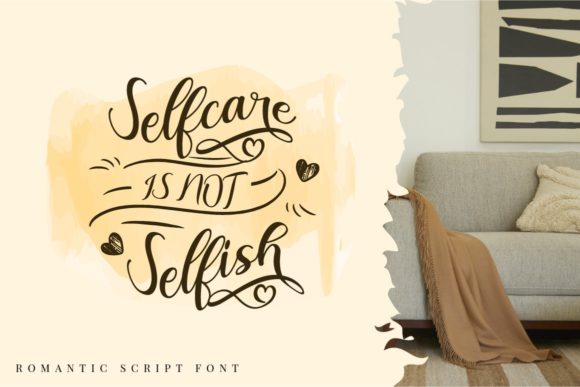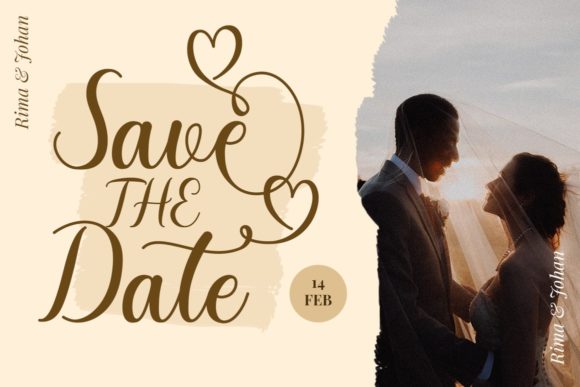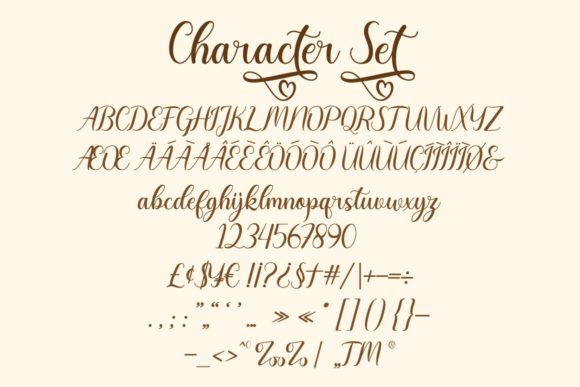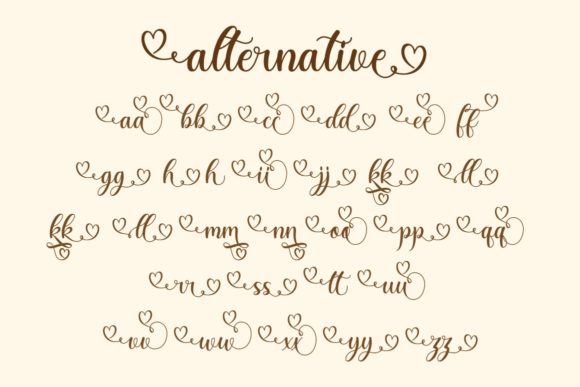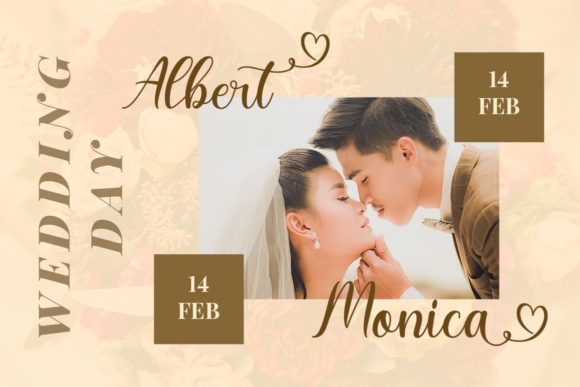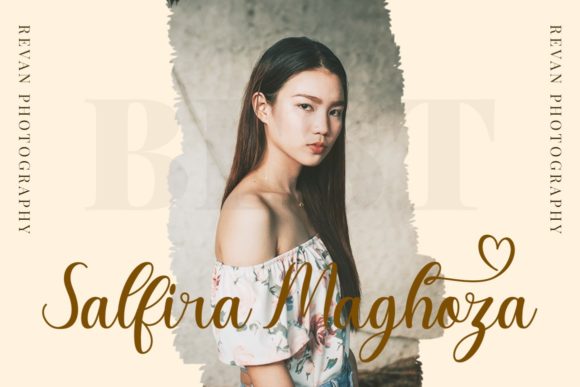
Introduction to Romantic Dates Font
As designers, we’ve all been there – staring at a blank canvas, waiting for inspiration to strike. For some, it’s the gentle glow of a sunset, while for others, it’s the soft whisper of a loved one’s voice. For me, it’s the feeling of curling up with a good book and a warm cup of coffee on a lazy Sunday morning. And that’s exactly the feeling I get when I see the Romantic Dates Font in action.
This dreamy and warm handwritten font is a design resource like no other, perfectly capturing the essence of romance and whimsy. Whether you’re working on a creative project that requires a touch of elegance or a free download that needs a dash of personality, the Romantic Dates Font is sure to deliver. With its PUA encoding, you can access all of the glyphs and swashes with ease, making it the perfect addition to your design toolkit.
As a high-quality design resource, the Romantic Dates Font is a valuable asset for any designer looking to add a touch of sophistication to their work. And with its transparent background, you can easily integrate it into any project, from wedding invitations to blog posts, and make it stand out in a big way.
Key Features of Romantic Dates Font
- High-quality, elegant design perfect for creative projects and romantic occasions
- Unique, hand-drawn style with intricate details and flourishes, adding a touch of romance to any design
- Perfect for use in wedding invitations, Valentine’s Day cards, and other romantic-themed creative projects
Honest Review: Romantic Dates Font
I recently came across the Romantic Dates Font and was excited to give it a try for my latest creative project. As a designer, I’m always on the lookout for high-quality design resources to elevate my work. The Romantic Dates Font did not disappoint.
Here are some things that work well: ✨ High-quality glyphs, perfect for creating beautiful typography. ✨ The font is highly customizable, making it ideal for a variety of design projects. ✨ It’s a free download, which is always a bonus.
However, there are some limitations to consider: ⚠️ The font doesn’t come with a transparent background option, which can be a bit limiting for certain design applications. ⚠️ Some of the glyphs may require additional styling to achieve the desired look.
Overall, I’m impressed with the Romantic Dates Font. It’s a solid addition to any designer’s toolkit, and I’d definitely recommend it for creative projects that require a touch of romance.
- High-quality glyphs
- Customizable
Tips for Getting the Most Out of Romantic Dates Font
Experiment with different font sizes and colors to create a visually appealing design. Use the Romantic Dates Font in a creative project, such as a wedding invitation or a romantic dinner menu.
Common Use Cases for Romantic Dates Font
The Romantic Dates Font is ideal for designing romantic and elegant designs, such as:
– Wedding invitations and stationery
– Romantic dinner menus and place cards
– Valentine’s Day and anniversary cards
– Luxury brand marketing materials